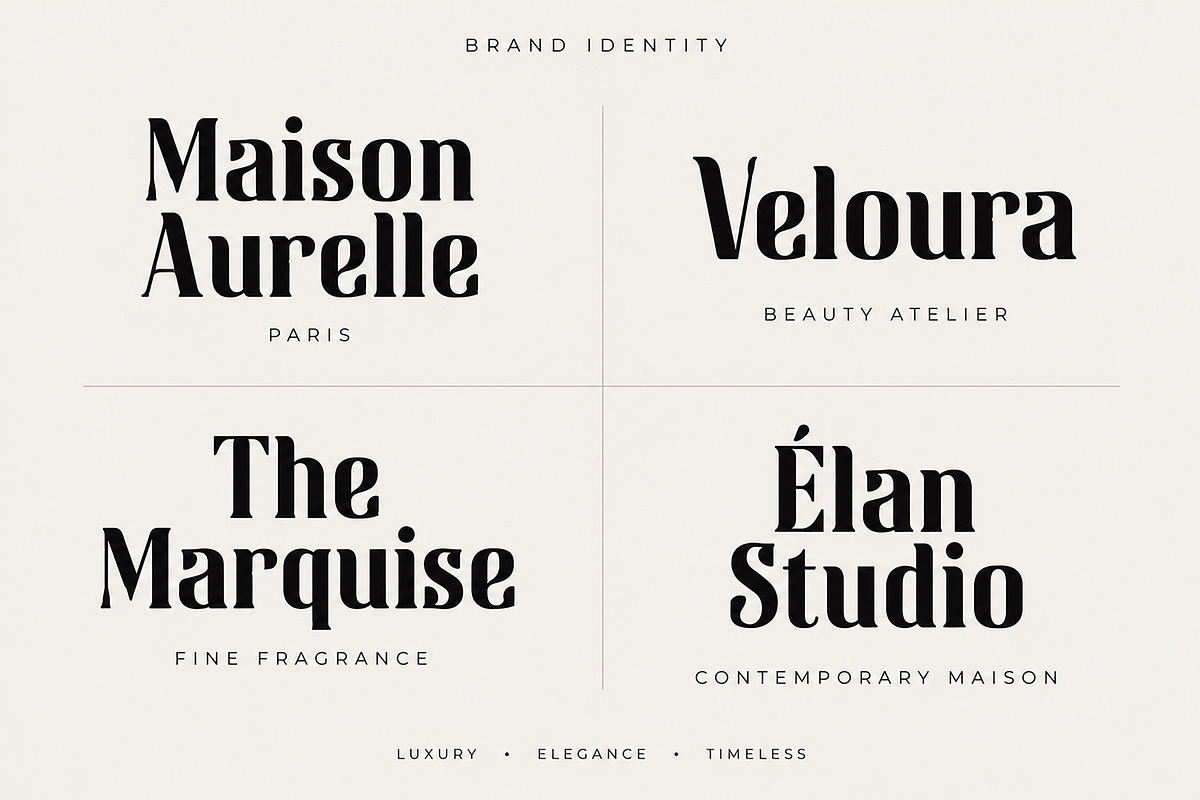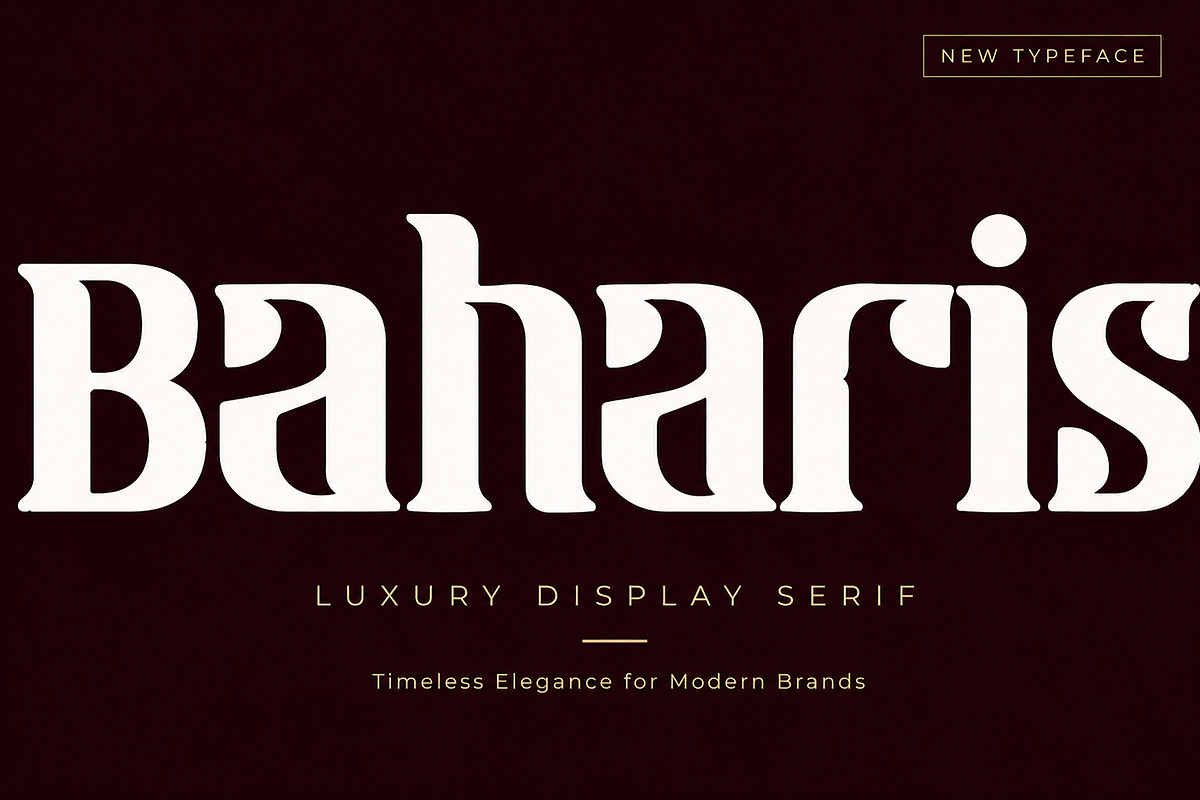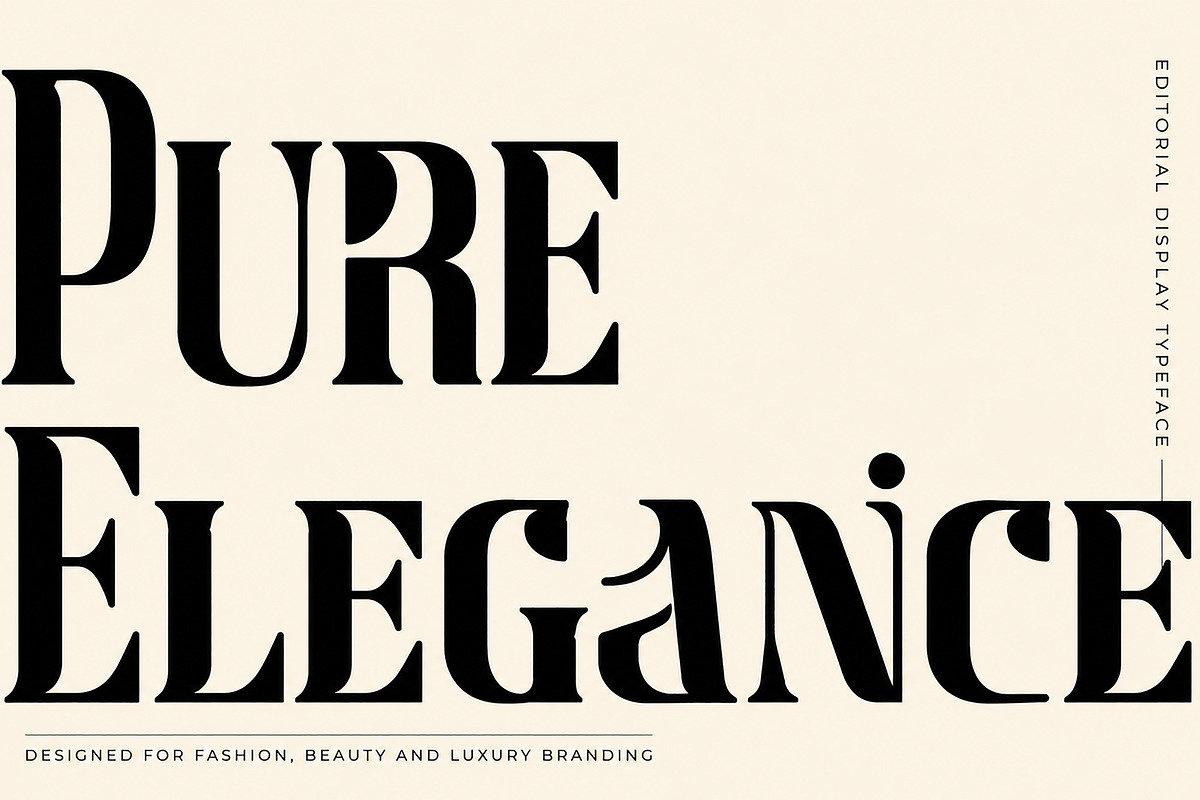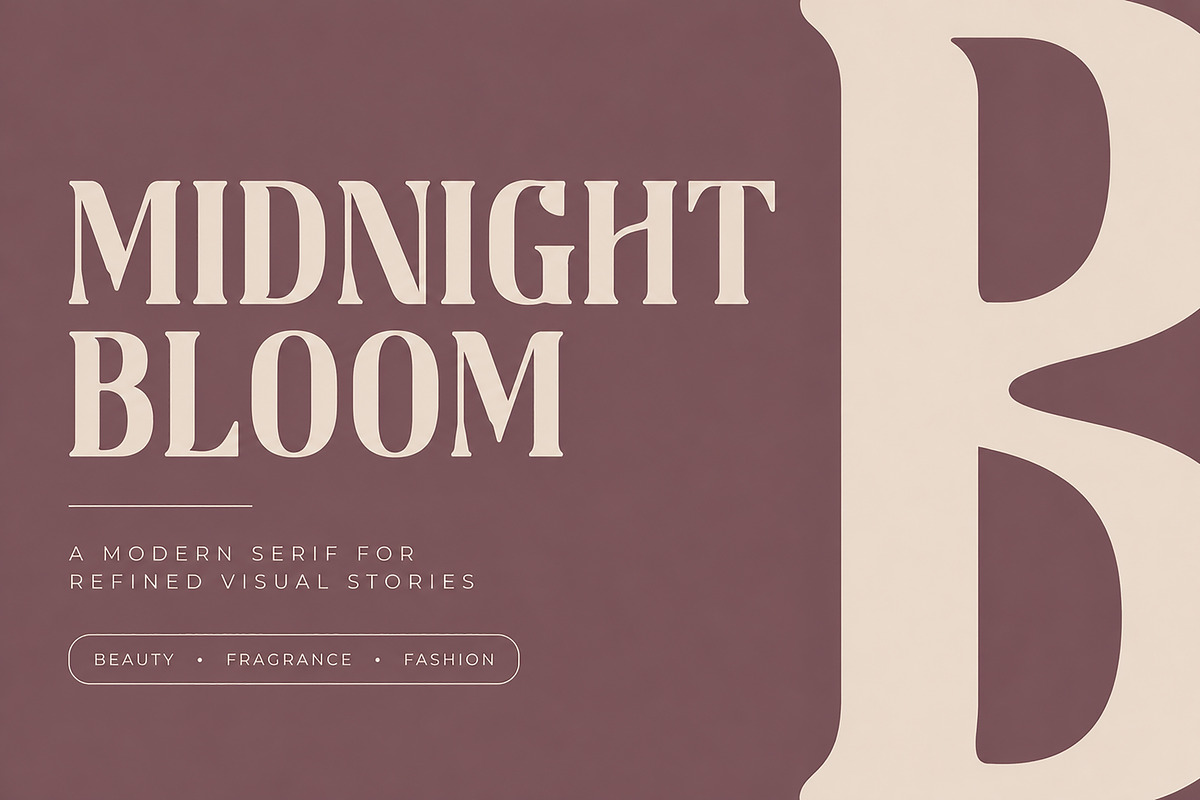
Baharis
Baharis – Luxury Display Serif Typeface
Baharis is a refined luxury display serif designed to bring elegance, sophistication, and timeless character to your creative projects. With its high-contrast letterforms, graceful curves, and editorial-inspired style, Baharis is perfect for designers who want to create premium branding and eye-catching typography.
Whether you're designing luxury logos, fashion campaigns, beauty packaging, magazine headlines, or wedding stationery, Baharis delivers a distinctive and memorable visual presence.
Its elegant personality makes it ideal for modern luxury brands while maintaining a classic editorial feel.
Luxury Branding
Editorial Headlines
Fashion Magazines
Beauty & Skincare Packaging
Perfume Branding
Wedding Invitations
Boutique Branding
Premium Marketing Materials
High-End Print Design
Elegant Display Serif
High-Contrast Letterforms
Clean & Professional Design
Luxury Editorial Style
Perfect for Branding & Logos